Good fonts will never ruin a design, so we are here to help you choose the best design elements. Today we present legendary pirate fonts for your vintage design with a style mostly used for branding, logos, gaming, posters and adventure.
All these pirate fonts is crafted by professional designers and are at the best quality no matter it is free or premium font. Just imagine your design theme and use these fonts to create something unforgettable and eye catching.
Them Bones
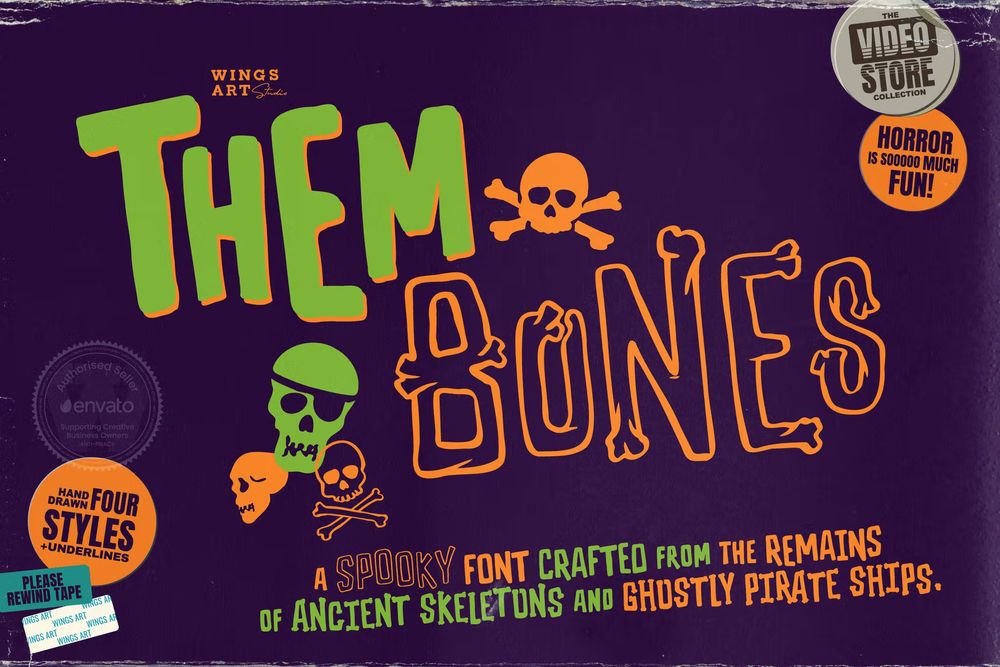
Them Bones is a hand-drawn and spooky font made from the remains of ancient skeletons and ghostly pirate ships. Perfect for vintage, halloween, gaming designs.
Vanderick
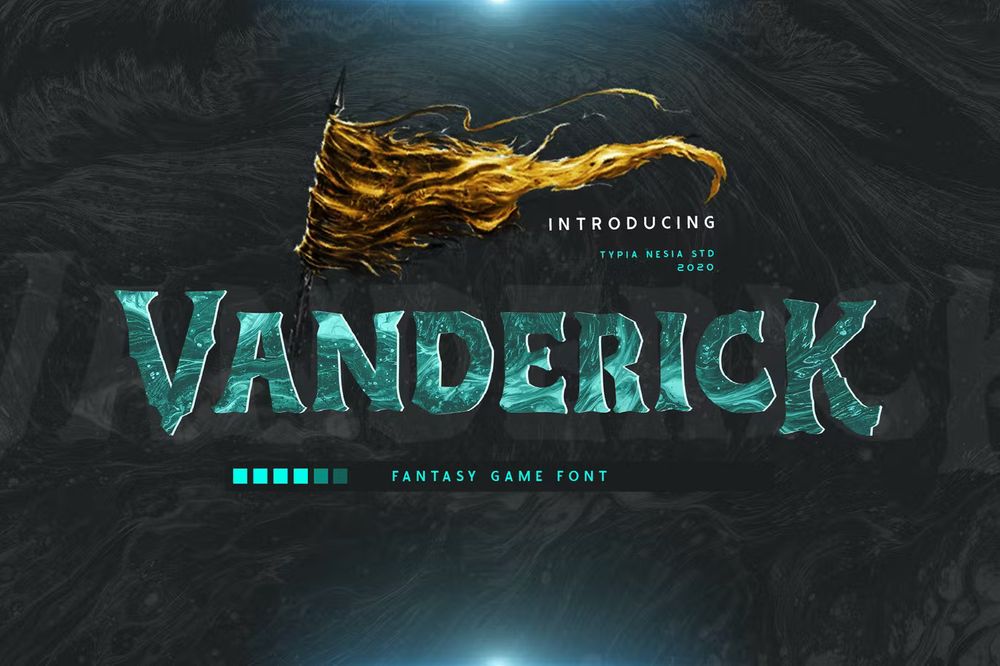
It is a fantasy game display font. Suitable for any design needs such as logos, branding, modern advertising designs, halloween, gothic designs, apparel and etc.
The Pirates
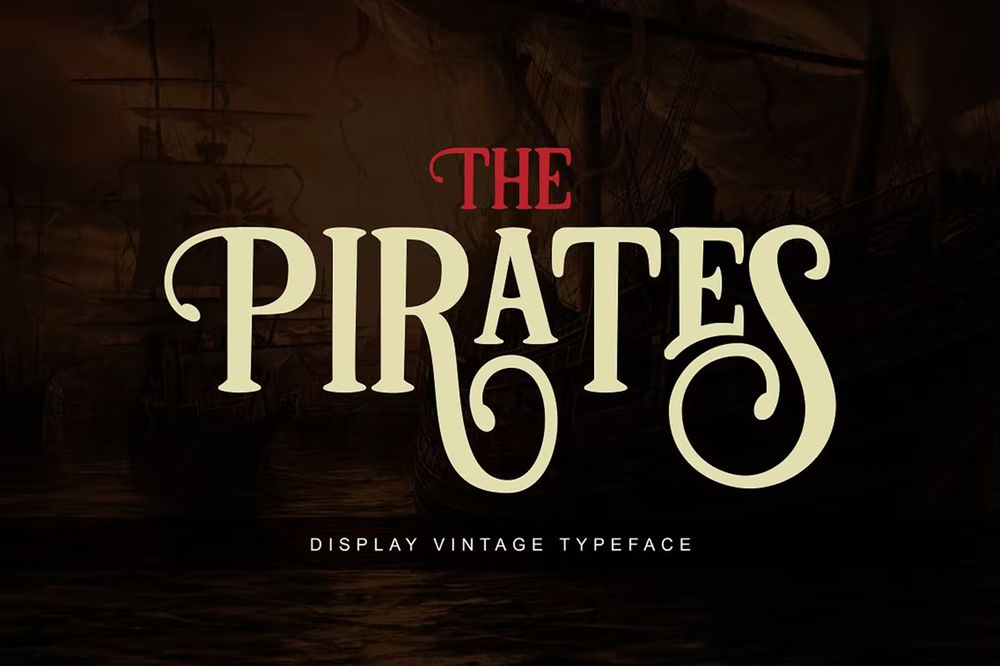
It is a display type, with style a retro, vintage, and classic. This font comes to give a classic feel for the designer to working on various projects such as headlines, insignia, badges, wedding invitations, greeting cards and etc.
Pirate
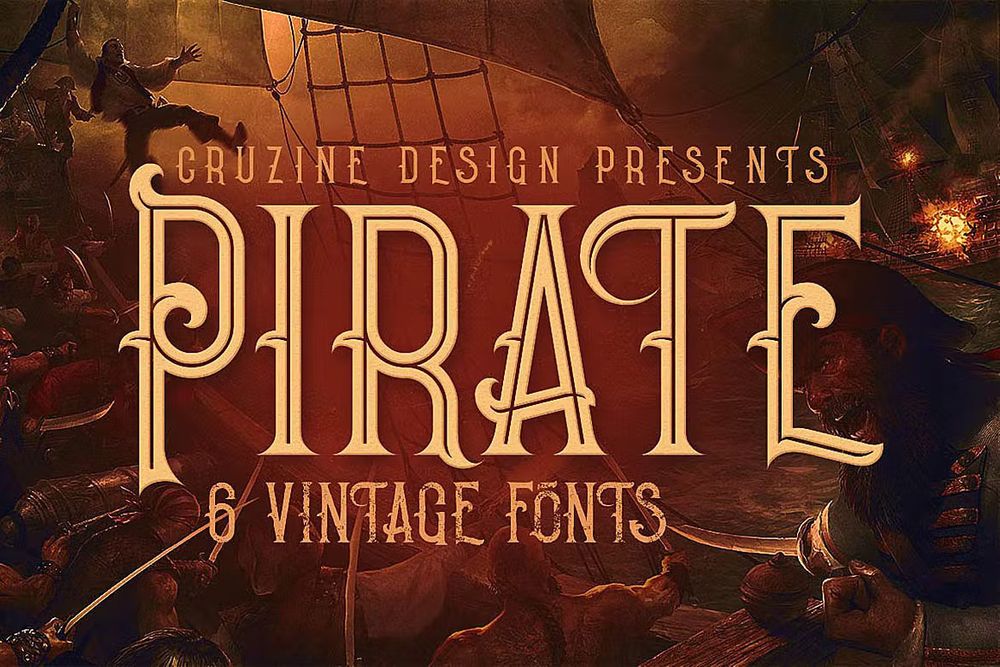
Unique retro or vintage style custom serif font with 6 styles: regular and grunge, inline and inline grunge, shadow and shadow grunge. Most useful for any kind of vintage design projects.
Pirates Rum
Enjoy this vintage font for your perfect design projects such as insignias, badges, posters, flyers and etc.
White Pearl
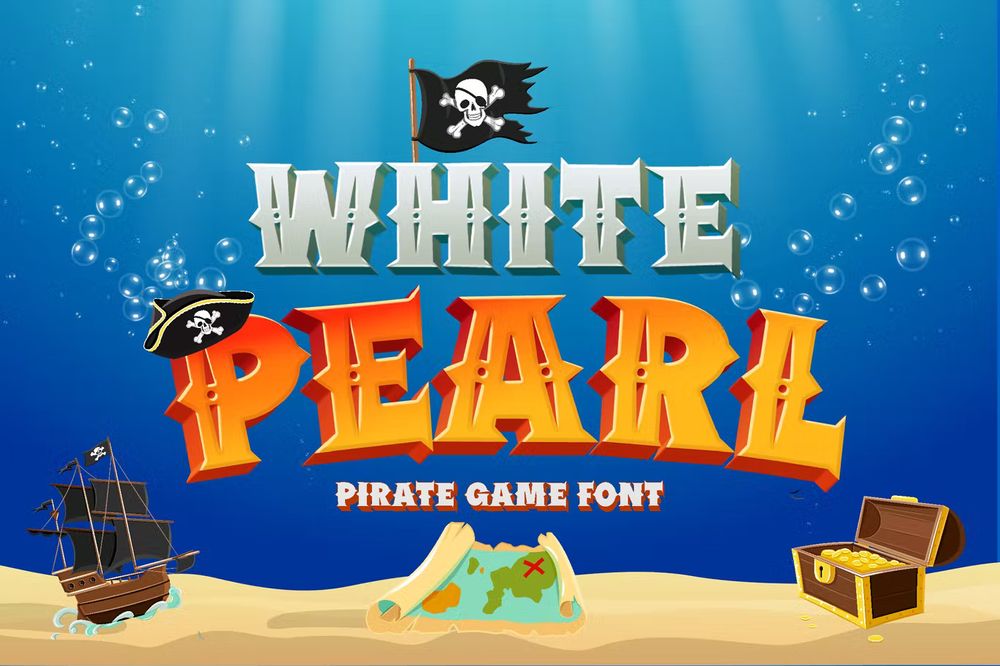
Taking the pirate spirit to the gaming platform. Suit perfectly for online games, posters, cartoon movie titles, fast food menu, magazines, youtube covers and etc.
Antistar
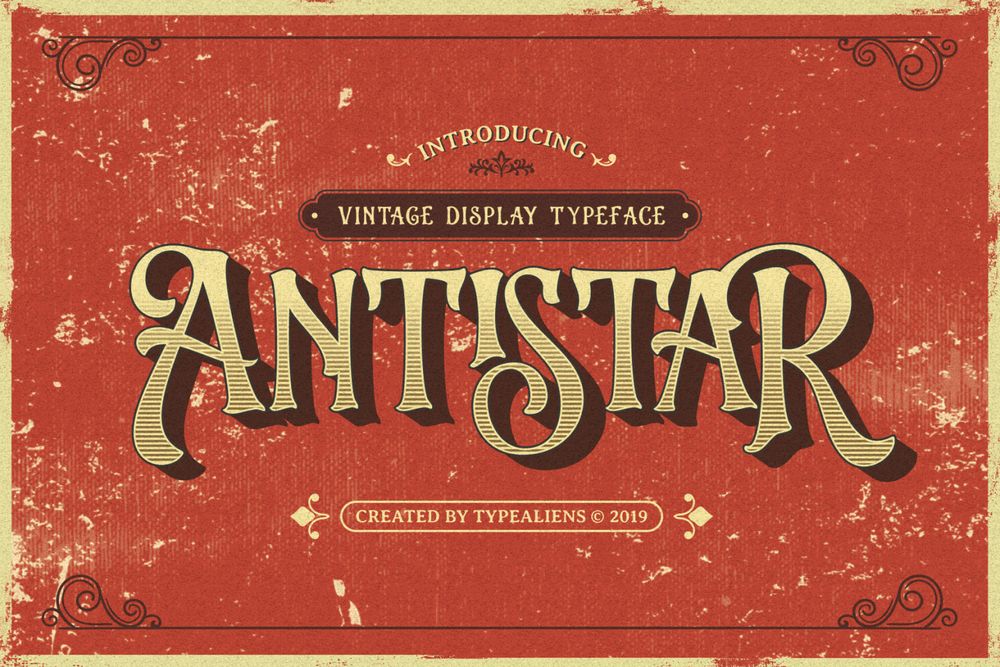
It is a display font with a classic style. Perfect for logos, posters or other branding needs with a vintage feel.
Chevante
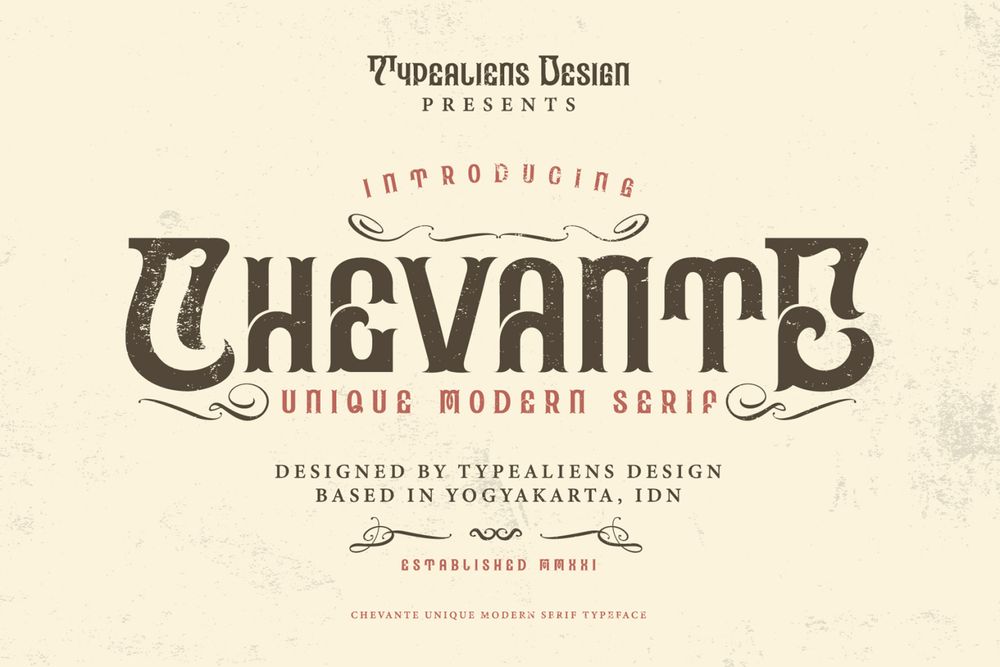
It is a display font based on serif fonts with minimalistic hooks. Perfect for posters, vintage badges, insignias, flyers, covers and etc.
El Capitan (Free)
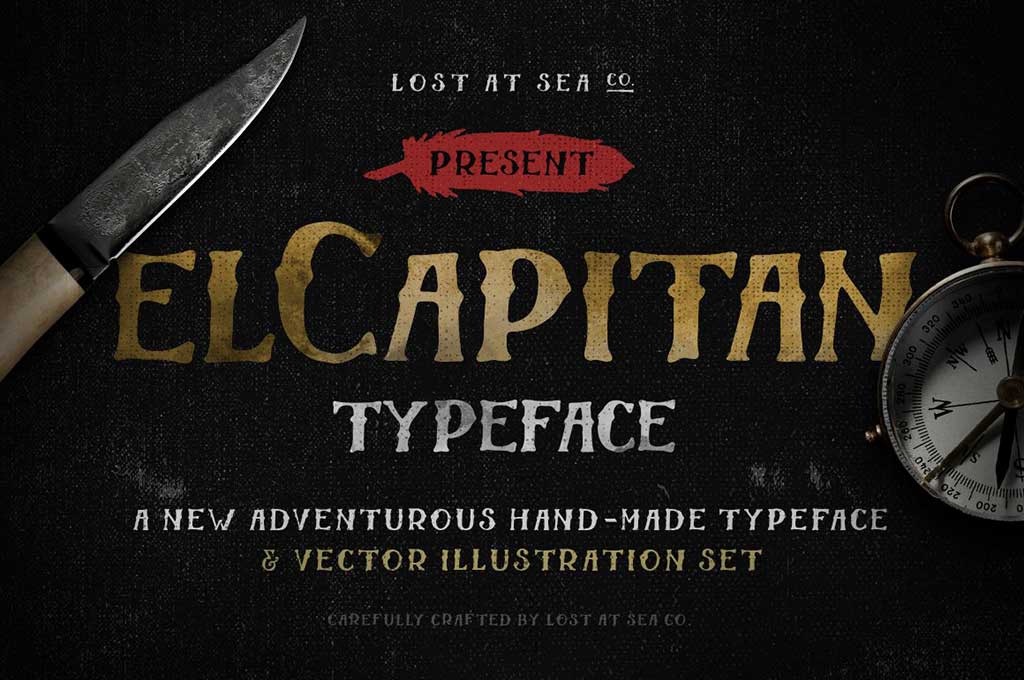
It is an adventurous typeface that will give your project a proper look. Perfect for posters, covers, headlines, titles, flyers and etc.
Jack Pirate (Free)
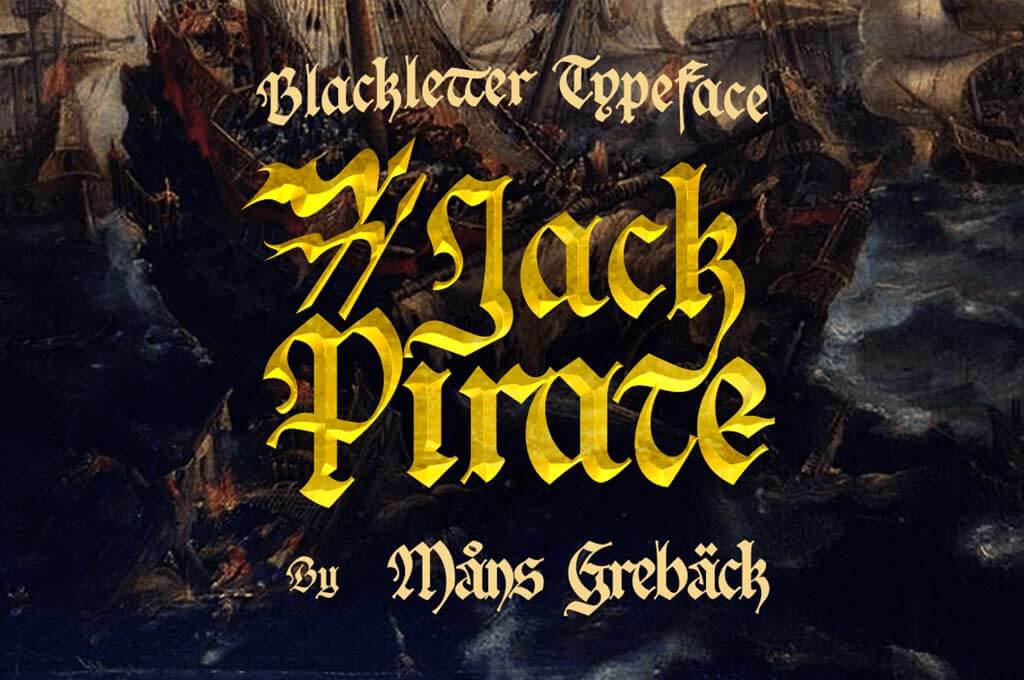
It is a genuine pirate font with fraktur-inspired letterforms and gothic decorations. Ideal for your vintage designs such as posters, covers, headlines, titles, flyers and etc.
Shadow Stripes (Free)
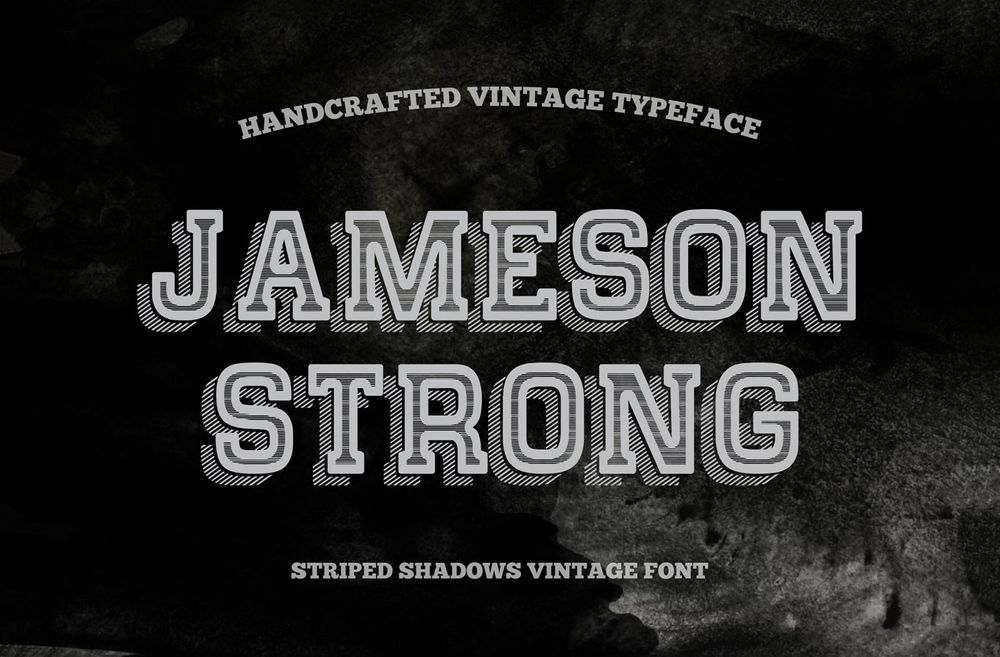
Handcrafted with love for details and commitment to beloved typographic traditions. This type is perfect for titles, headings, posters, flyers, covers and etc.
Skulls and Crossbones (Free)
Dark and shadow pirate font for your design projects such as vintage styled cards, posters, flyers, covers and etc.
Blackbeard
A bold and solid display font that has a vintage feeling. Best going for headlines, titles, packaging, posters, t-shirt designs and etc.
El Piratos
An all caps font with 3 (three) weight, regular, bold, and black. Perfect for titles, posters, flyers, covers and etc.
The Simbiod
All caps display serif – classic adventure fantasy pirate game font. Suitable for logos, branding, modern advertising designs, halloween, gothic designs, apparel and etc.
Coaster Ghost
It is a serif type font that is quite rigid, suitable for badge designs, as well as for logos, titles, covers, flyers and etc.
Dark Surfer
A sleek, layered, vintage-style font. It contains 6 writing styles. Perfect for labels, vintage badges, titles, covers, posters and etc.
Alitide
All caps font with modern western style. Ideal for badges, insignias, covers, titles, posters and etc.
Caligor
It is a display typeface family which is suitable for you who needs a typeface for headlines, logotypes, apparel, invitations, branding, packaging, advertising and etc.
Black Pearl (Free)
It’s a Pirate’s of the Caribbean font style you’re doomed to identify. Perfect for movie titles, posters, flyers, covers and etc.
Candelabra
A medieval and fantasy inspired blackletter font. Ideal choice for tattoo studios, band logos and album art, trendy fashion apparel, book covers, game designs and etc.
Pirate Bay
A vintage look label font. It will good viewed on any retro design like posters, t-shirt designs, labels, logos and etc.
Caribbean Rum
A vintage look label typeface. It includes six styles and alternates characters. With these styles you can made your own, unique, vintage look badges, labels, posters, t-shirt designs and etc.
Captain Saltbeard